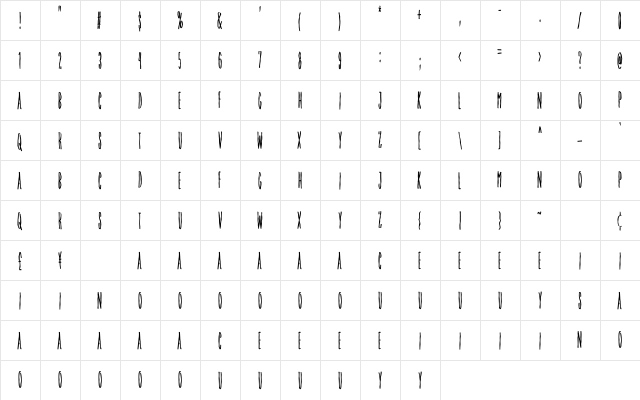
Tele Brush Rough Regular
Design Context for Tele Brush Rough Typeface
Tele Brush Rough trades polish for personality, using distressed and eroded forms to bring grit and attitude to creative work.
A strong fit for alternative music projects, graffiti-adjacent design, and anything that deliberately resists polish.
Pro Tip: Use Tele Brush Rough at larger sizes where the texture and irregularity of each letterform can be clearly seen — it loses its character at small sizes.